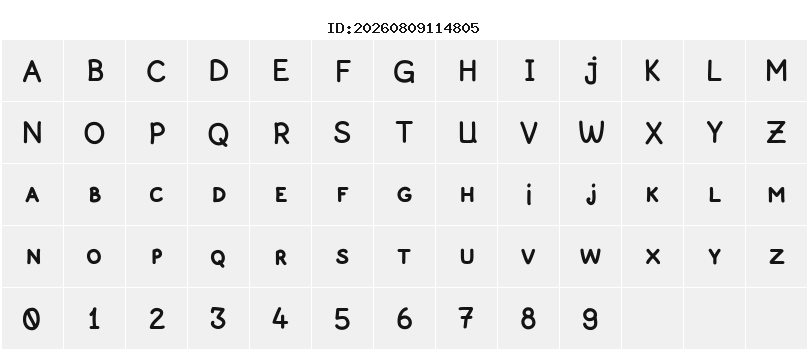
Pek Komik Sans Preview
• Font Name: Pek Komik Sans
• Designer: Ozgur Serdar Altunoglu
About Pek Komik Sans.ttf
Pek Komik Sans.ttf is a modern, elegant sans-serif font designed for ultimate readability and visual harmony. Perfect for branding, headlines, web design, and print materials.